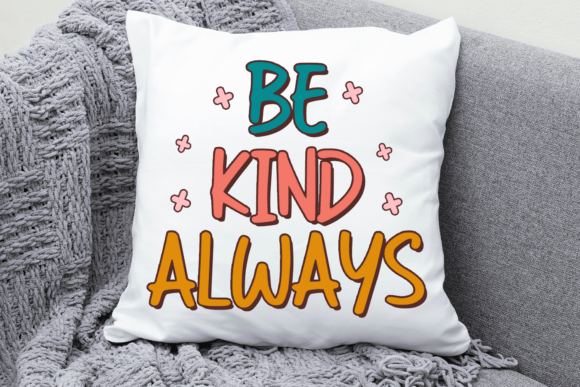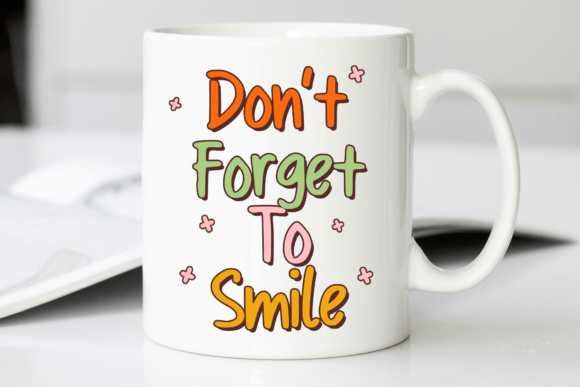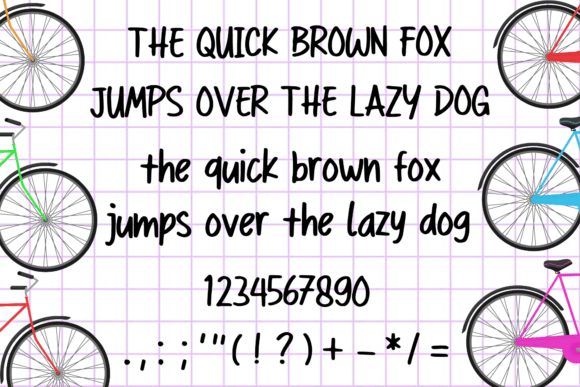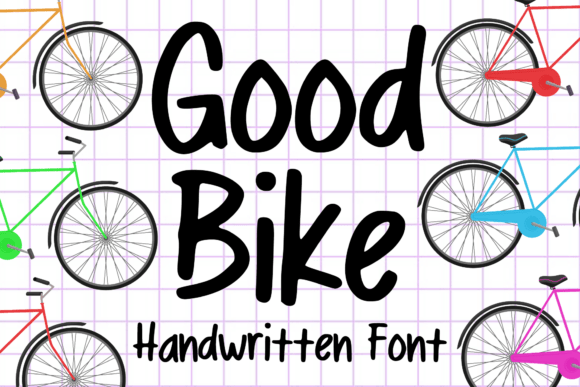
The Ultimate Guide to Good Bike Font: Unleash Your Creativity with this Versatile Handwritten Comic Font
Are you a designer, crafter, or DIY enthusiast looking for a font that can add a bold and fun touch to your projects? Look no further than Good Bike Font, a versatile handwritten comic font inspired by 90s street graffiti, comics, and cartoons. In this article, we’ll dive into the world of Good Bike Font and explore its endless possibilities for creating fabulous designs.
What is Good Bike Font?
Good Bike Font is a unique and playful font that captures the essence of 90s street culture. Its handwritten comic style is perfect for adding a personal touch to your designs, making them stand out from the crowd. With its bold and fun vibe, Good Bike Font is ideal for a wide range of projects, from t-shirts and clothing to book designs, street art, greeting cards, stickers, posters, and banners.
Key Features of Good Bike Font
• Versatile: Good Bike Font is a versatile font that can be used for various design projects, from digital to print.
• Handwritten: Its handwritten style gives your designs a personal and unique touch.
• Comic-inspired: Inspired by 90s street graffiti, comics, and cartoons, Good Bike Font adds a fun and playful vibe to your designs.
• Bold: This font is perfect for making a statement with your designs, adding a bold touch that’s sure to grab attention.
Use Cases for Good Bike Font
Good Bike Font is an incredibly versatile font that can be used for a wide range of projects. Here are some ideas to get you started:
• T-shirts and Clothing: Add a fun and playful touch to your apparel designs with Good Bike Font.
• Book Designs: Use Good Bike Font to create eye-catching book covers, illustrations, and graphics.
• Street Art: Good Bike Font is perfect for street art, adding a bold and edgy touch to your murals and graffiti.
• Greeting Cards: Create unique and personalized greeting cards with Good Bike Font.
• Stickers and Posters: Use Good Bike Font to create fun and colorful stickers and posters.
• Banners: Add a bold and playful touch to your banners with Good Bike Font.
Tips for Using Good Bike Font
Here are some tips for getting the most out of Good Bike Font:
• Experiment with Colors: Good Bike Font looks great in bold and bright colors, so don’t be afraid to experiment.
• Mix and Match: Combine Good Bike Font with other fonts to create unique and interesting typography.
• Play with Size: Good Bike Font looks great in large and small sizes, so experiment with different sizes to find the perfect fit.
Good Bike Font is a versatile and playful font that’s perfect for designers, crafters, and DIY enthusiasts. With its bold and fun vibe, it’s ideal for adding a personal touch to your designs. Whether you’re creating t-shirts, book designs, street art, or greeting cards, Good Bike Font is sure to unleash your creativity and bring a smile to your audience’s faces. So why wait? Try Good Bike Font today and feel the fun and cheering vibes!